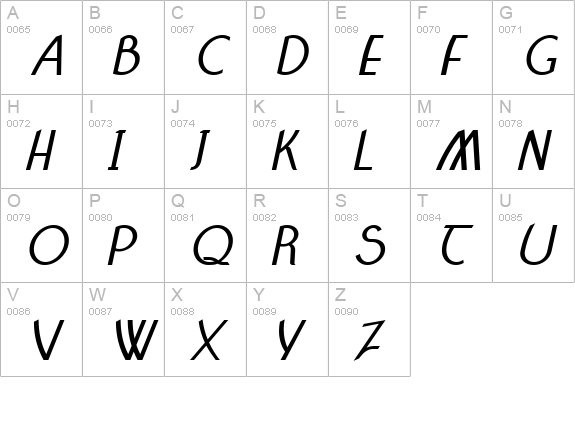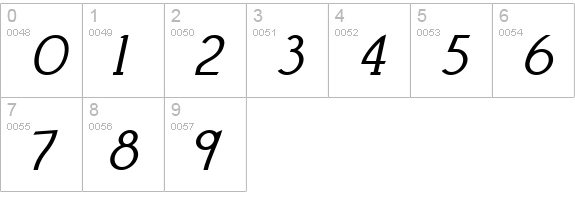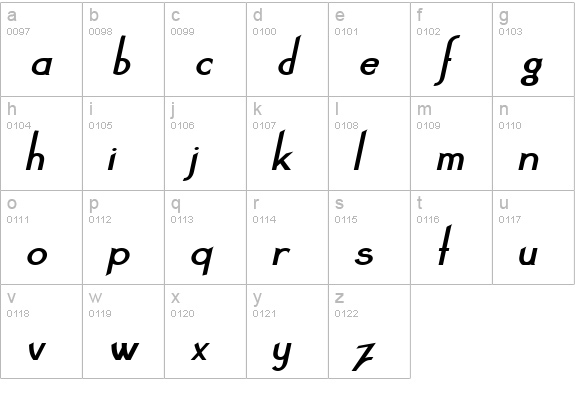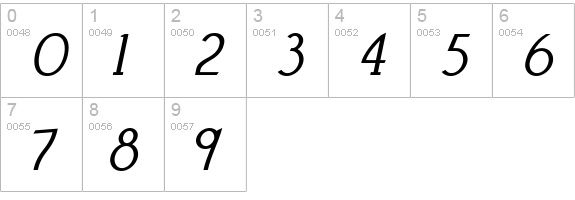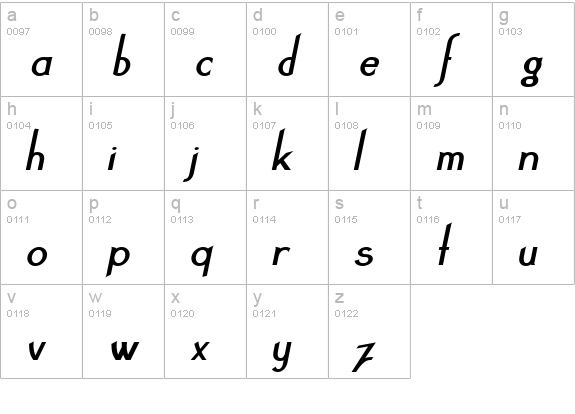
Claritty_BoldItalic Font Details
Introducing Claritty BoldItalic font, a striking and versatile typeface that effortlessly combines boldness with elegance. This unique font exudes confidence and sophistication, making it perfect for a wide range of design projects. Claritty BoldItalic features a bold weight with italicized styling, adding a touch of flair and personality to any text or headline. Its clean and modern design ensures readability while making a bold statement. What's even better is that Claritty BoldItalic is available for free download at FontsMarket.com, allowing you to add this stunning font to your collection without any cost. Whether you're working on branding, editorial design, or any creative project, Claritty BoldItalic is sure to make a lasting impression. Download now and elevate your designs with this exceptional typeface.